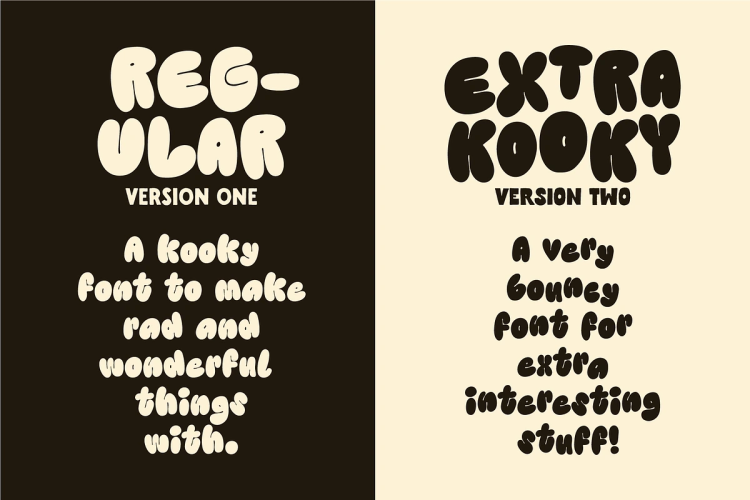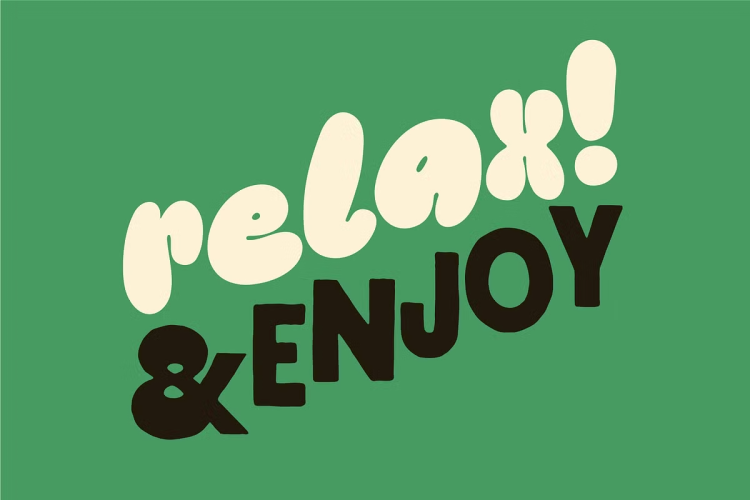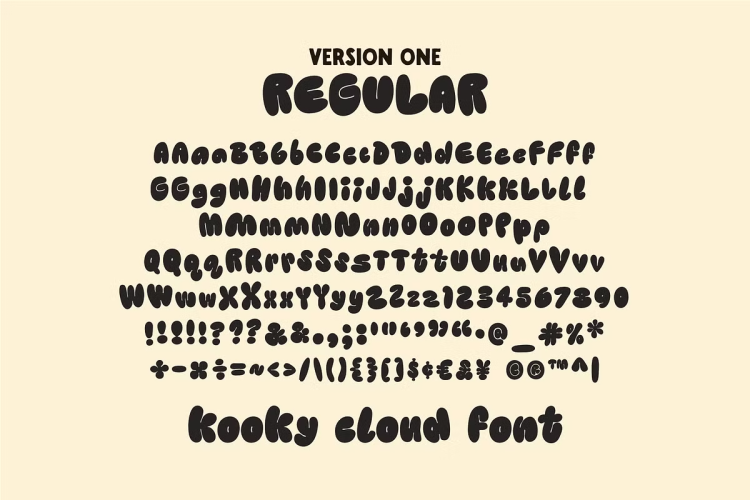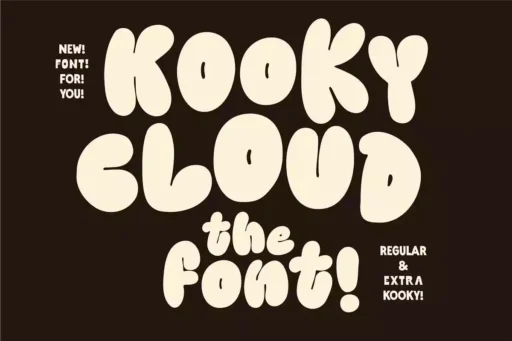
Kooky Cloud Font
Kooky Cloud is a fun looking bold display font by Studio Funshop. This font is pure font arts hand-lettered which has been designed to be as crazy as possible – it’s quirky, bubbly and just fabulous. There are styles for each letter, with variations for both upper and lower case Aa-Zz, as well as fun shapes for symbols like !, ?, and &. Great for logos, quotes, art, signage, titles, or any project where you want to give it a homemade look.
It has Capital and small letters (Aa-Zz), numbers and other symbols, and also the whole range of punctuation marks that will help to embody the individual approach to the design! Enjoy!
Kooky Cloud Font is a Display Fonts font that brings a professional and versatile look to your projects. Kooky Cloud is a fun looking bold display font by Studio Funshop.